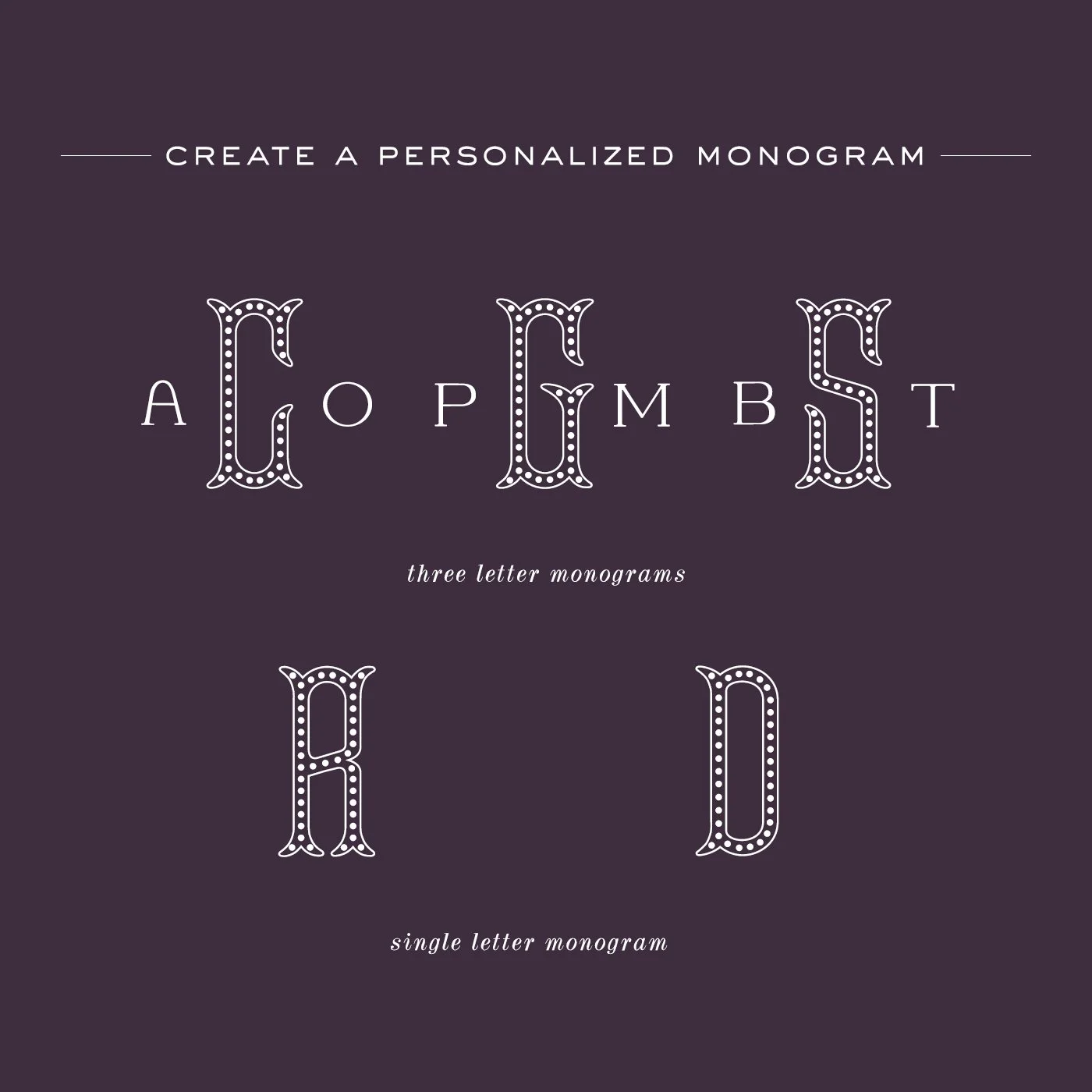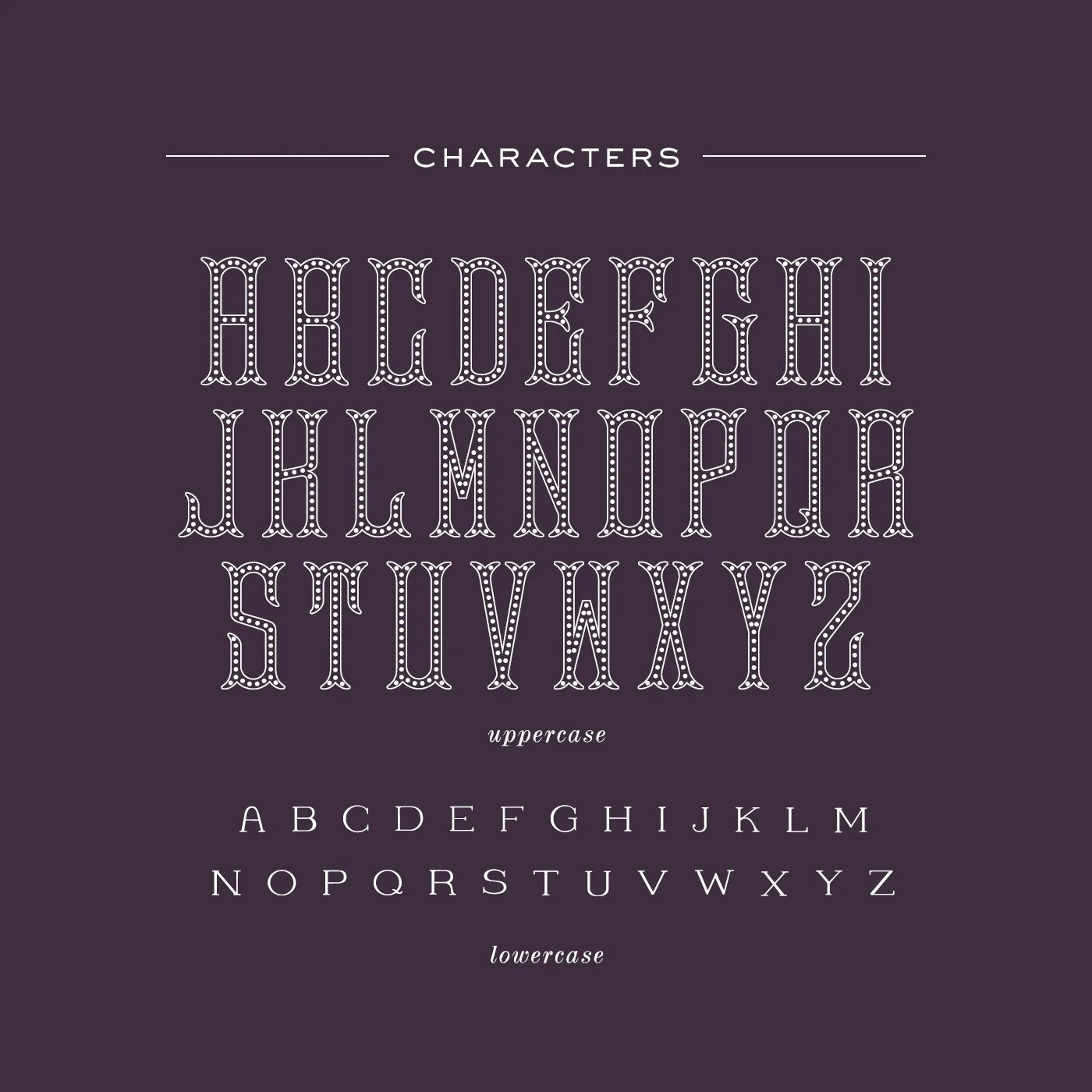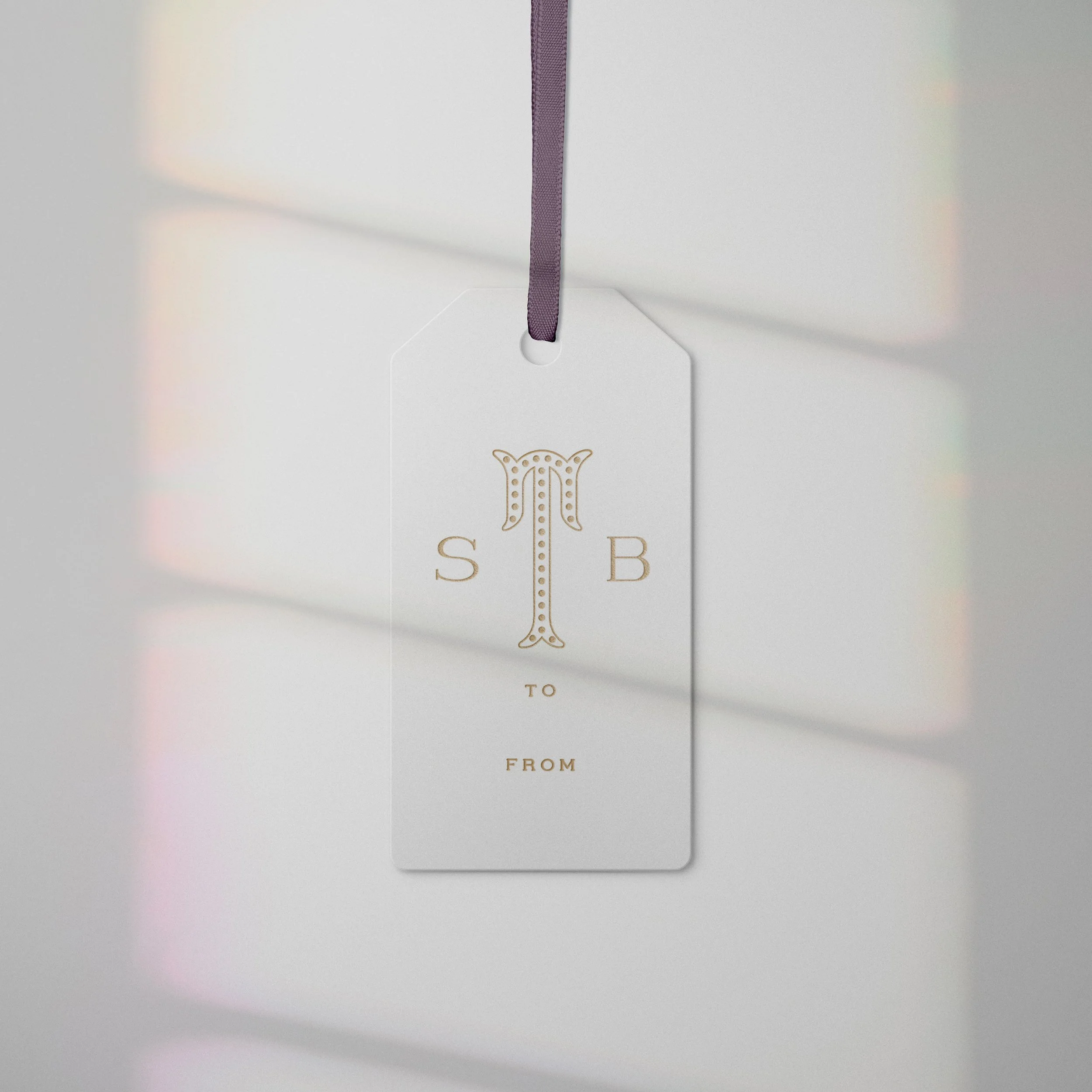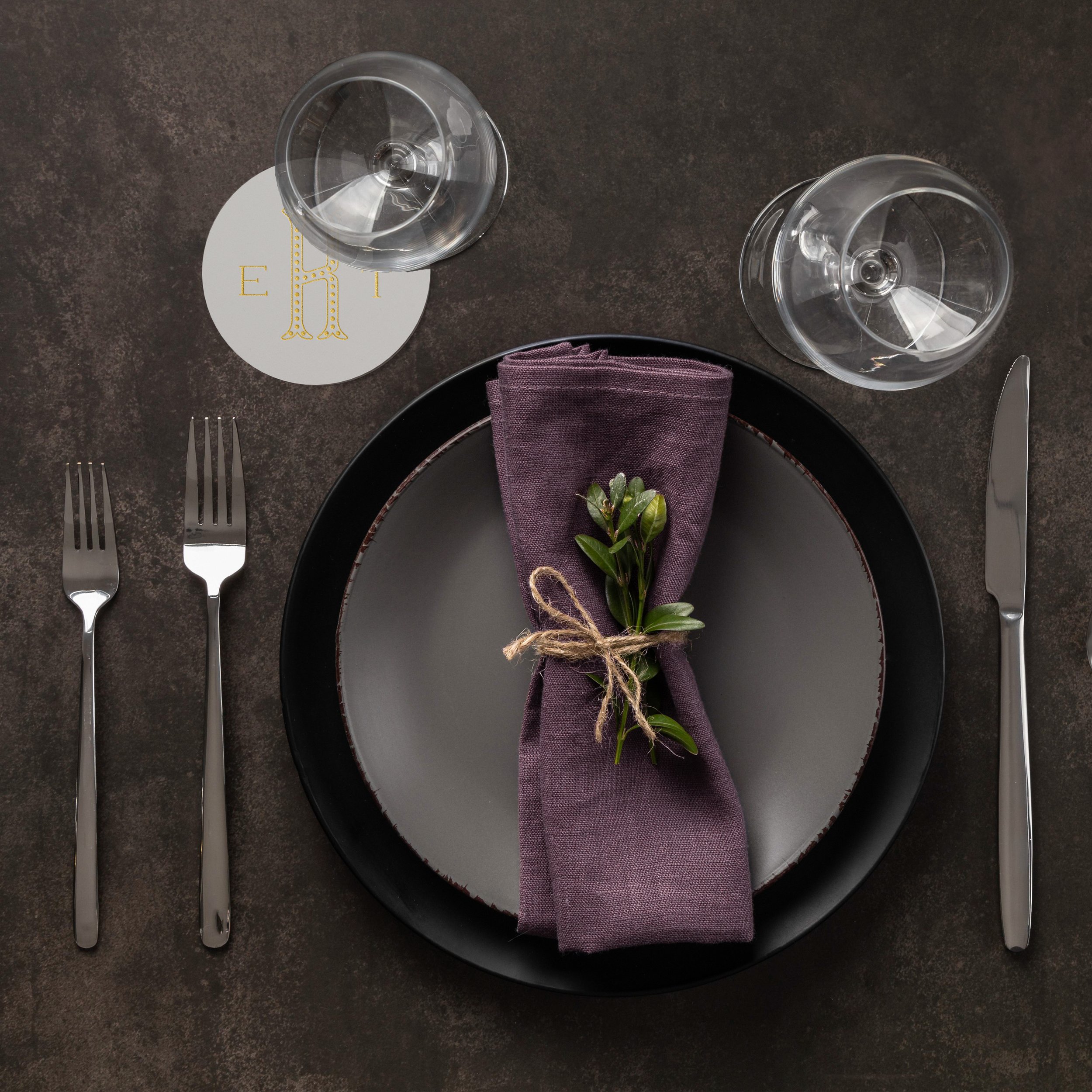
Make gorgeous one and/or three letter monograms quickly and easily in any program with this OpenType font.
TULIPA MONOGRAM FONT is the perfect monogram font suitable for wedding invitations, branding, stationery, blog design, custom art, return address stamps, custom embossers, etc. - the possibilities are endless!
• The singular file within the folder has the large and small letters along with all the borders. The uppercase letters are the center letters for last names and work as single monograms, the lowercase letters are the ones that sit on the sides to represent first names and middle names. The borders are located as numbers one through seven. One through three are three letter monogram borders and four through seven are the single letter monogram borders. For a full monogram, overlay the borders with your chosen letters.